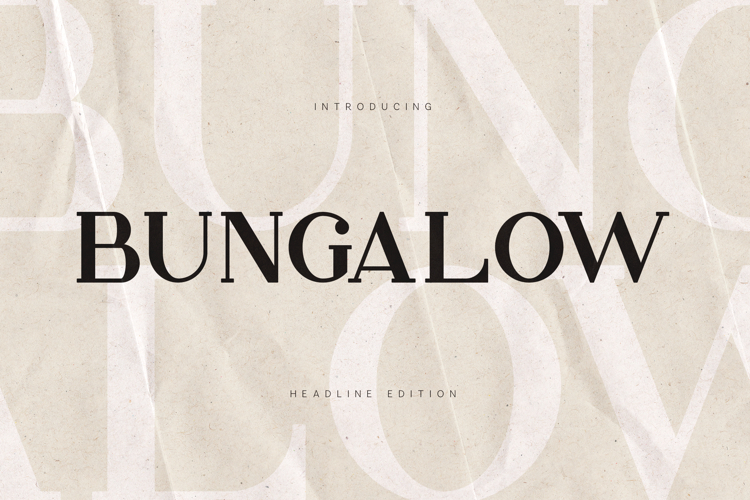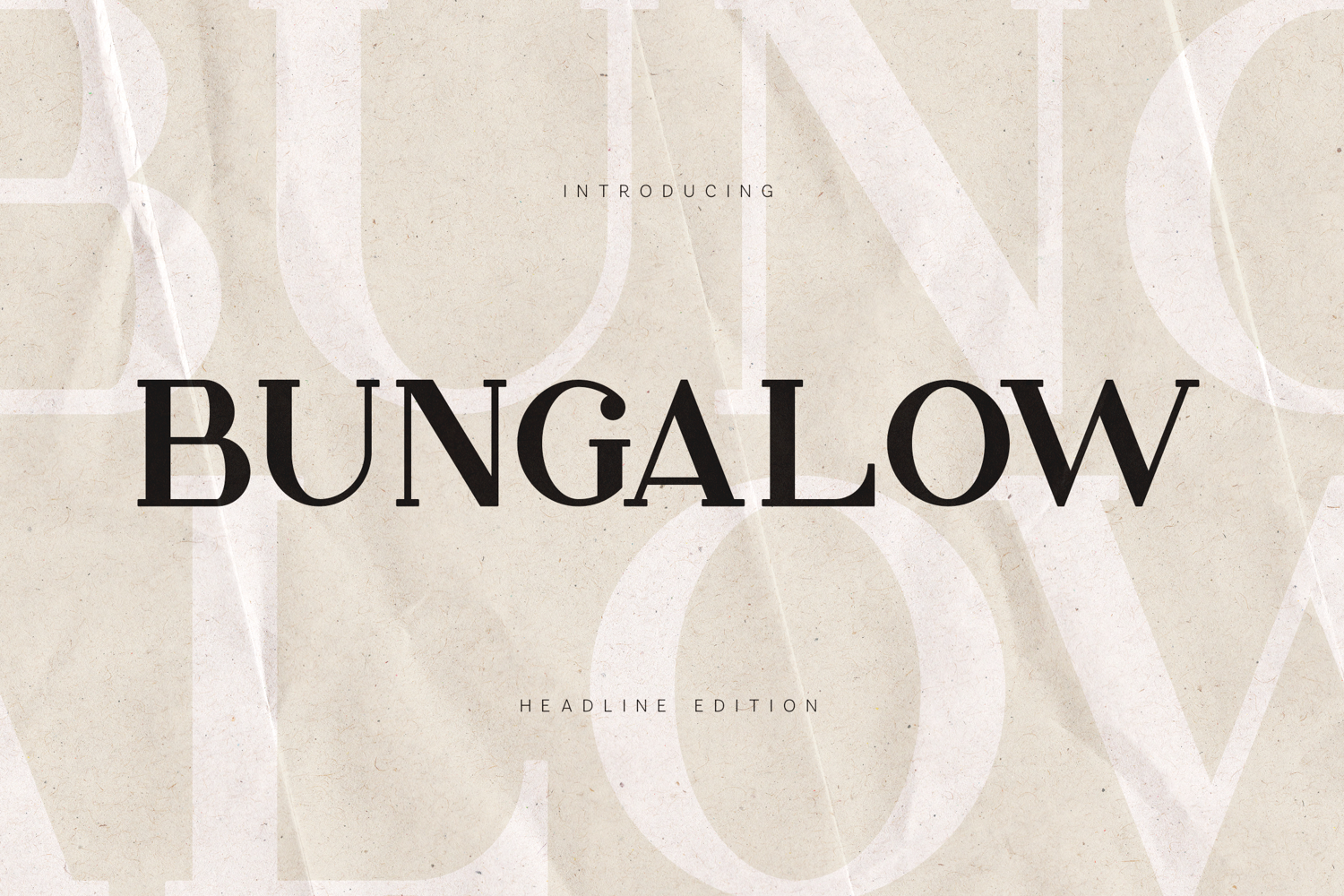
Bungalow Headline Edition
Bungalow is a modern editorial serif typeface designed for strong headlines, elegant branding, and sophisticated typography. The font blends classic serif structure with contemporary proportions, creating a refined balance between tradition and modern design.
With its sharp serifs, high contrast strokes, and carefully crafted letterforms, Bungalow is ideal for editorial layouts, luxury branding, fashion magazines, posters, and high-end logo design. The typeface maintains excellent readability while still delivering a distinctive and stylish character that stands out in large titles and display compositions.
Bungalow works beautifully across a wide range of creative projects including branding, packaging, advertising, book covers, and digital content. The elegant shapes and confident presence give designers the ability to create bold visual hierarchy while keeping a sophisticated typographic tone.
The font includes uppercase and lowercase characters, numbers, punctuation, and extended multilingual support, making it suitable for international projects and professional design work.
Whether you are designing for branding, editorial design, logos, magazines, or modern visual identities, Bungalow provides a timeless serif aesthetic with a contemporary edge.